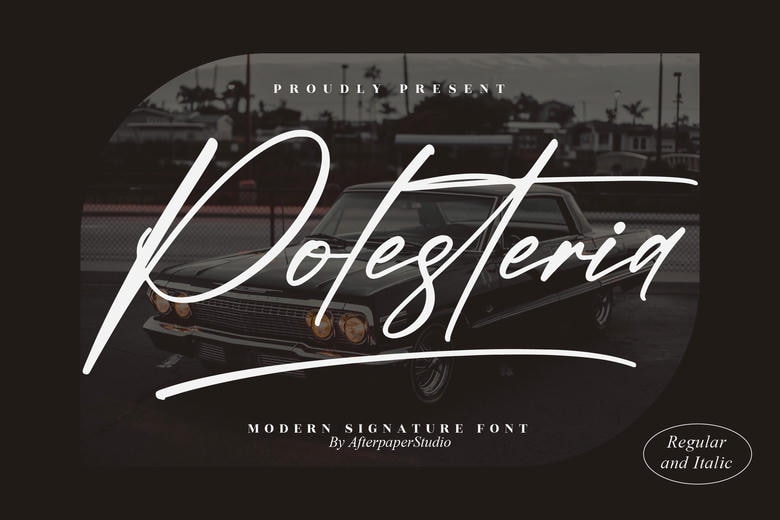
Polesteria Font
Polesteria is a sweet, delicate handwritten font. Its dainty and joyful style makes it perfect for wedding invitations, cards, or any design that needs a romantic, personal feel.
Polesteria Handwritten Script Font